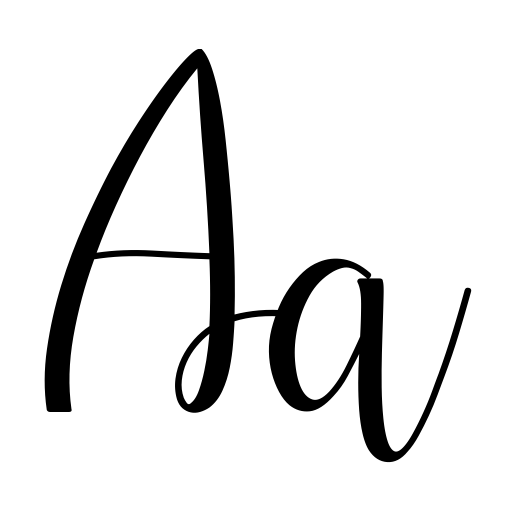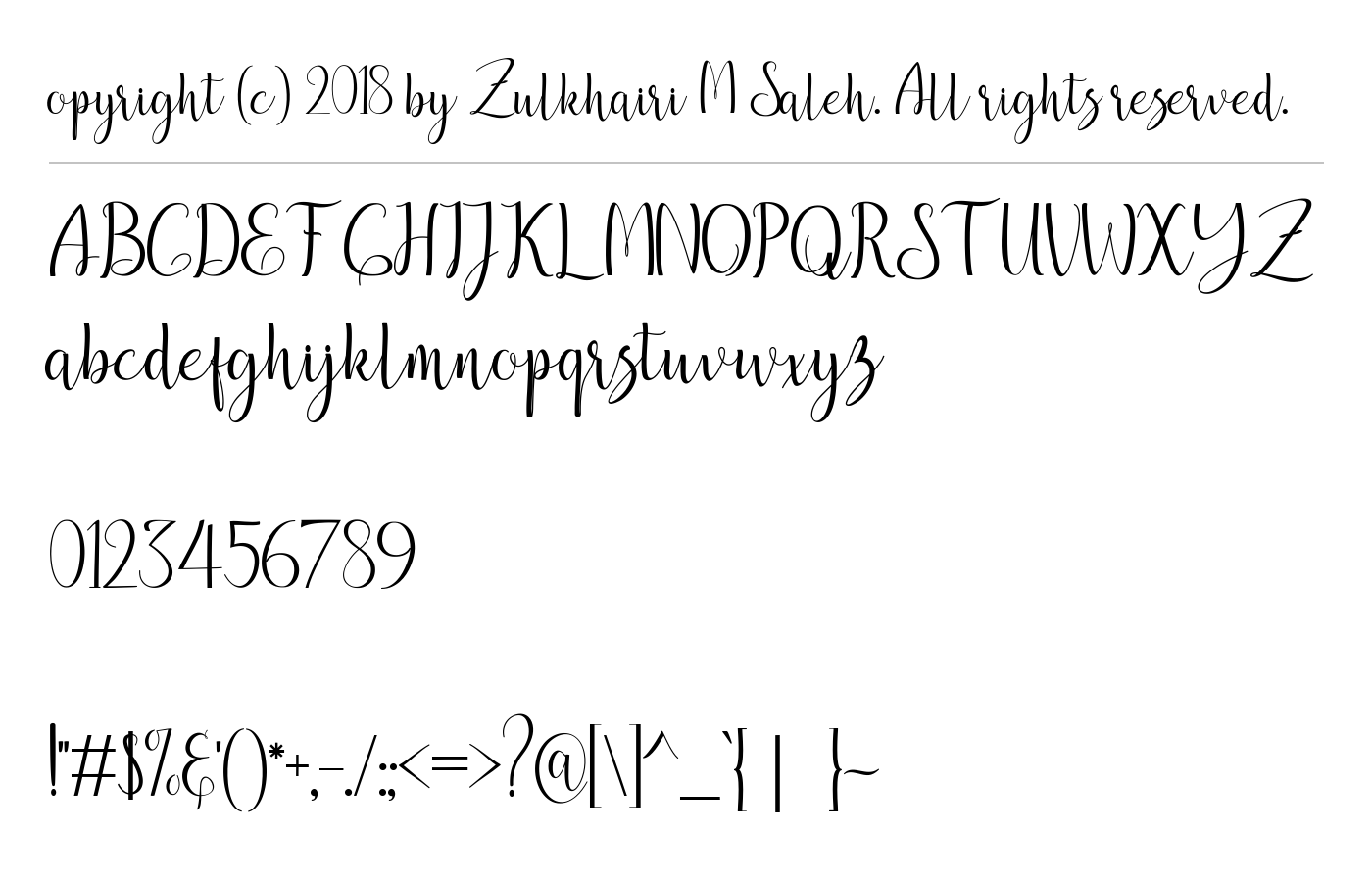
Breathaking Font is a delicate, handwritten script font characterized by its thin, fluid strokes and elegant, whimsical letterforms. Its tall, narrow letters with playful curls and swashes evoke a personal, artistic feel, making it perfect for invitations, branding, and projects that need a graceful, intimate touch. This font works beautifully where a light, stylish, and approachable mood is desired, especially in creative and boutique design contexts.
breathaking Font